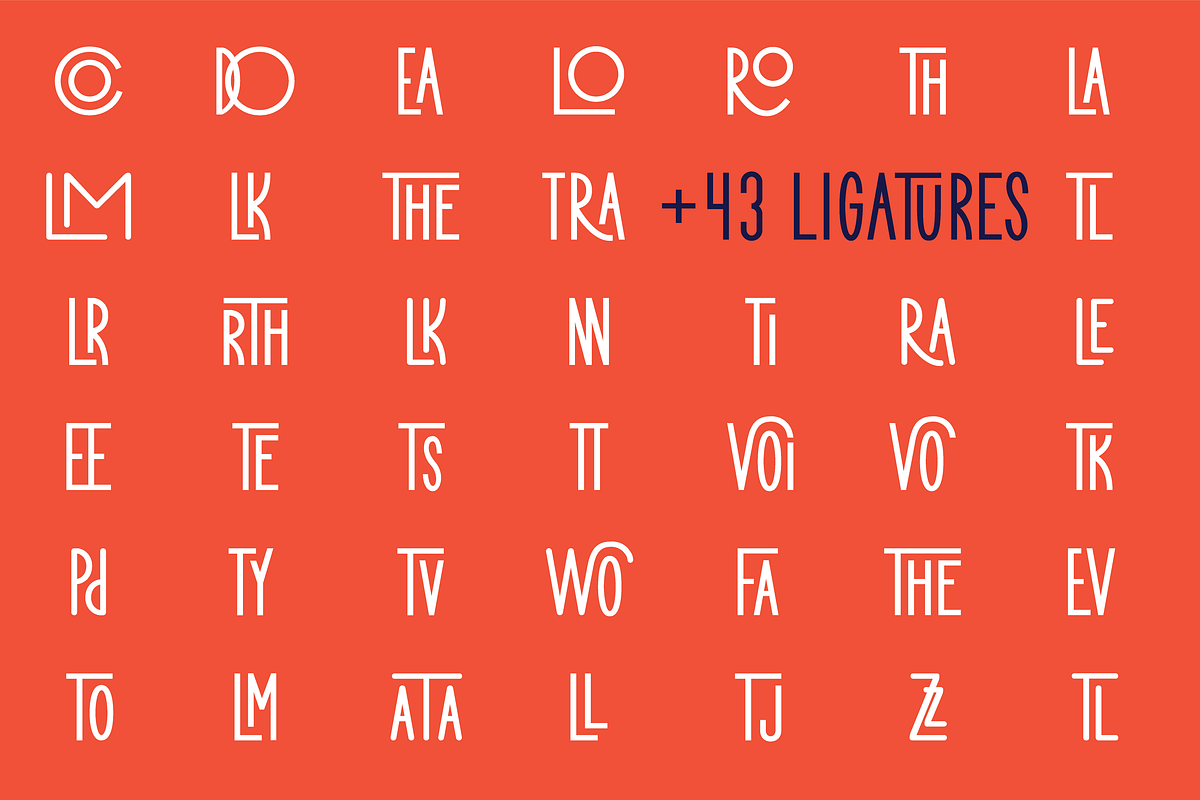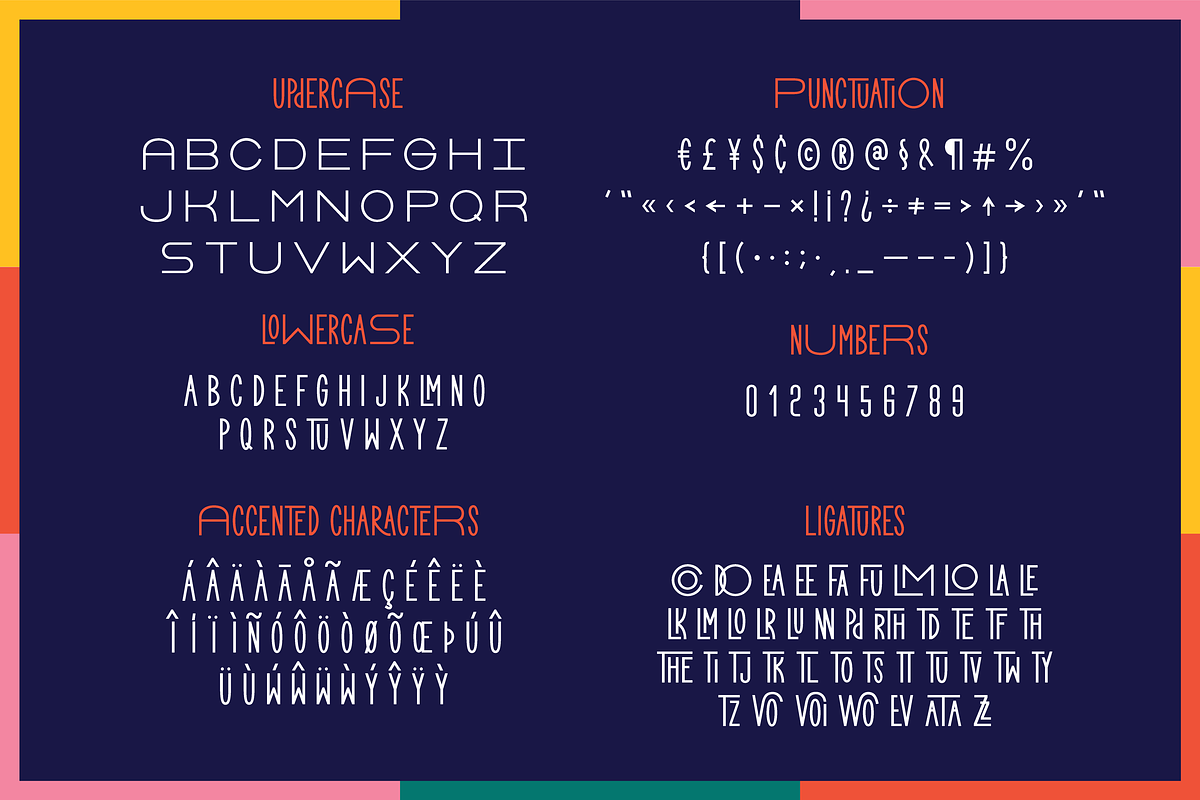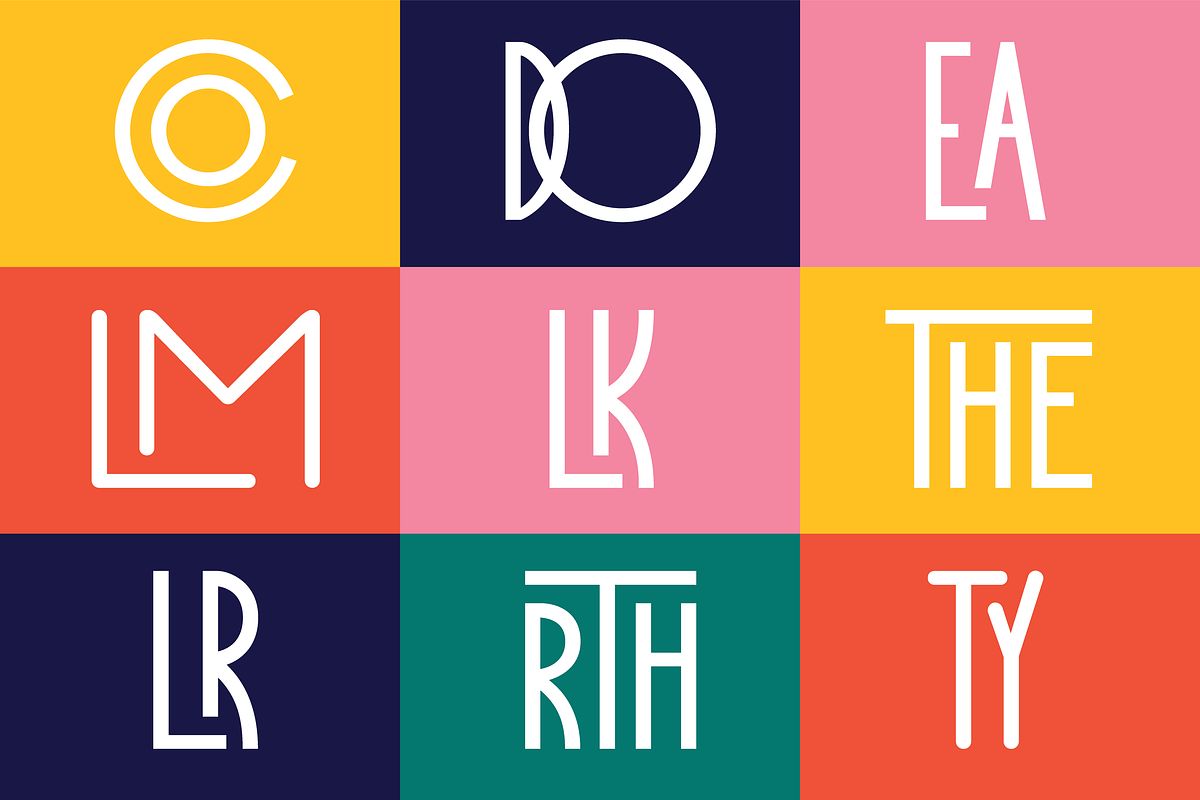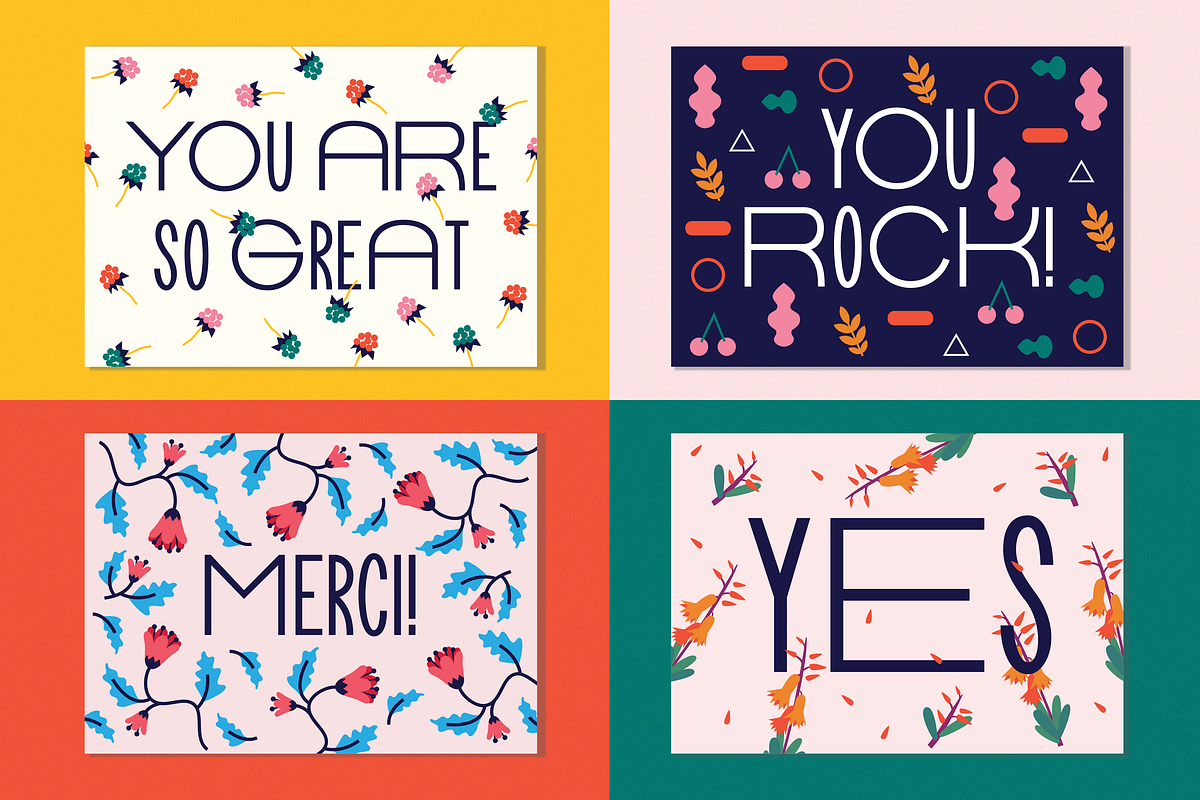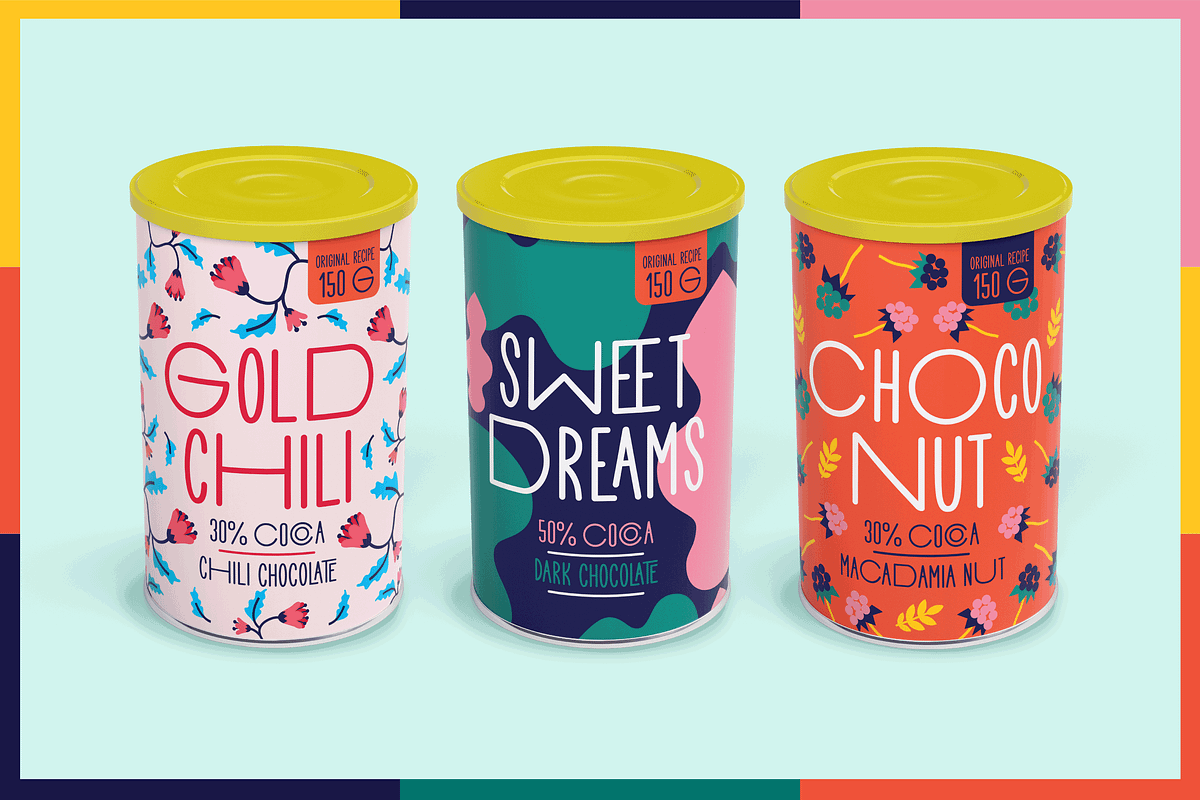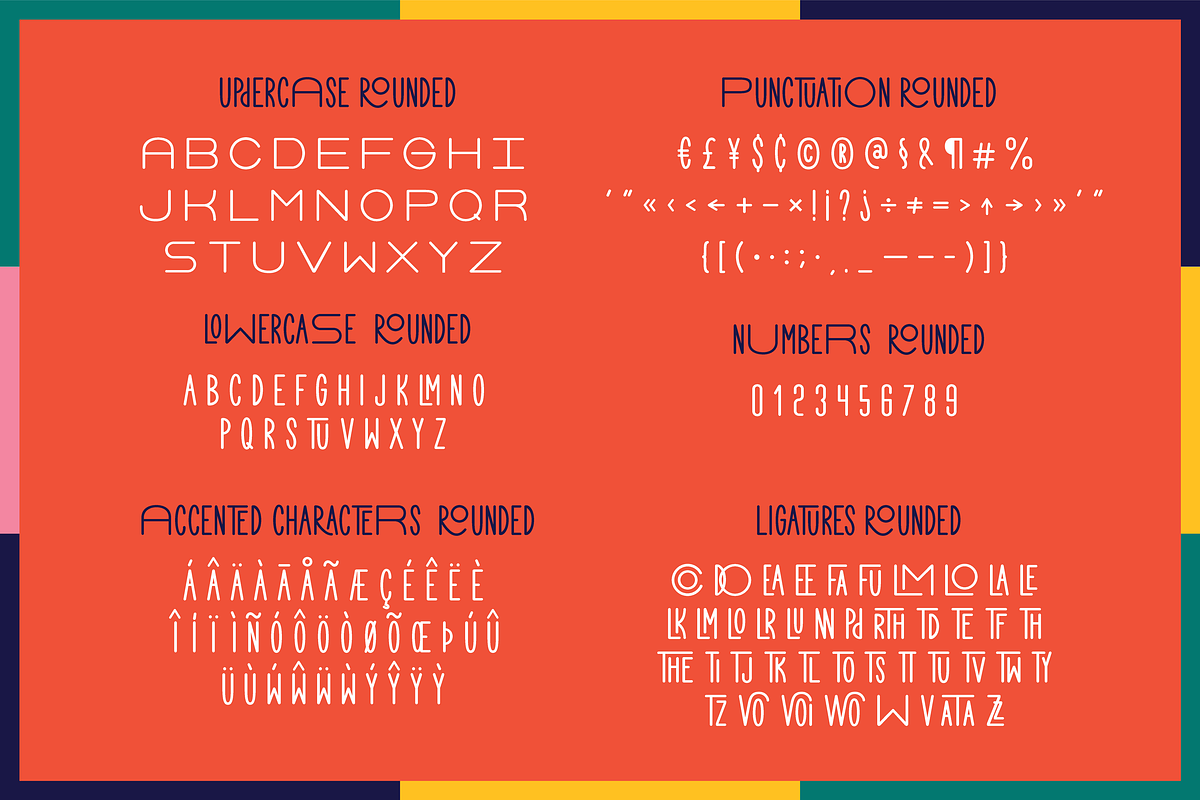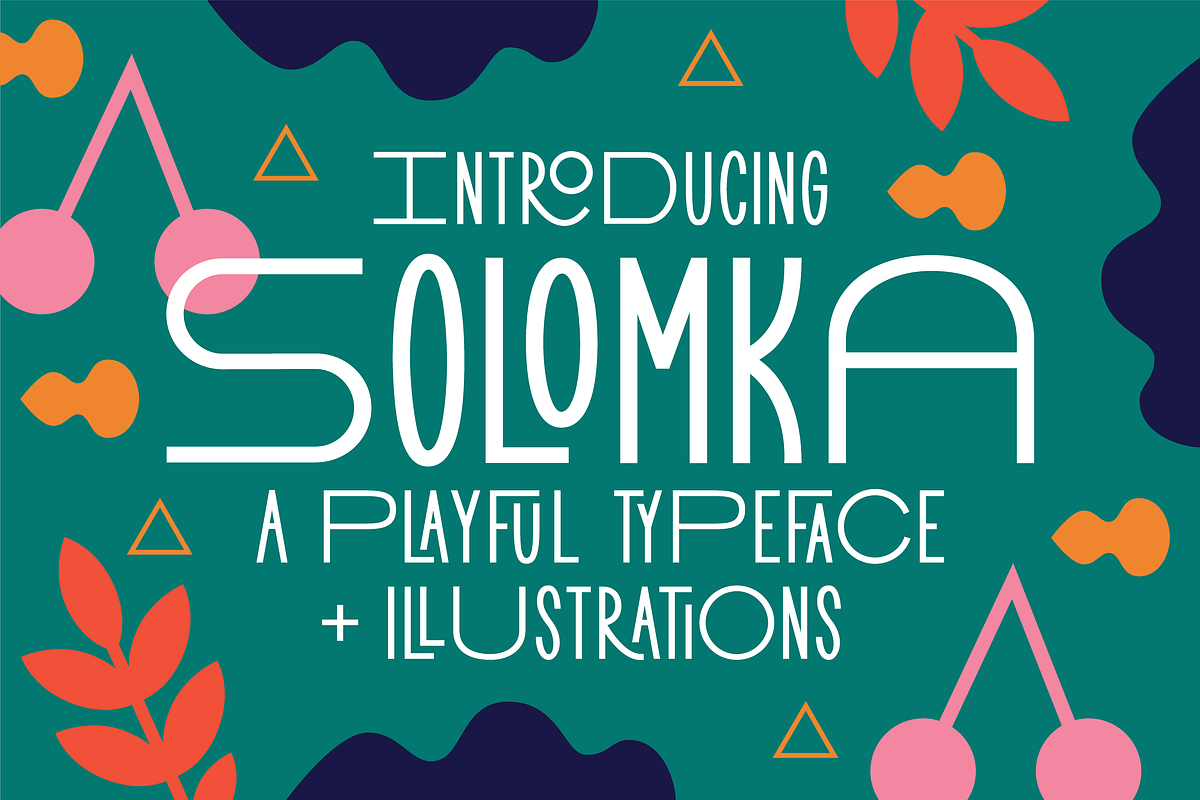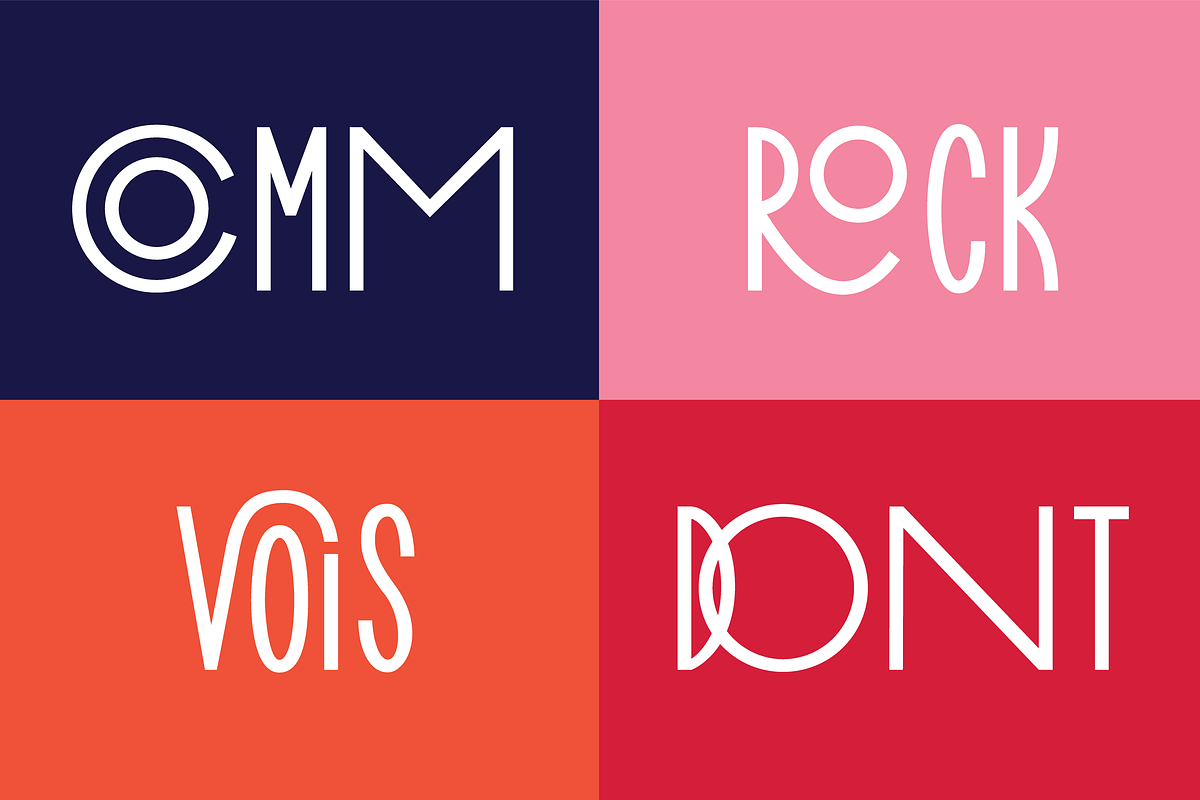
Solomka - Sans Condensed Typeface
Solomka is a playful sans serif typeface with a huge range of special ligatures and different uppercase letters. It comes with a classic and rounded version as well as beautiful illustrations and patterns. The combination between condensed lowercase and wide uppercase letters is modern and playful at the same time. Solomka works perfect for logos, posters, postcards, packaging and much more!
Solomka includes 2 all-caps fonts:
Numerals and Punctuation